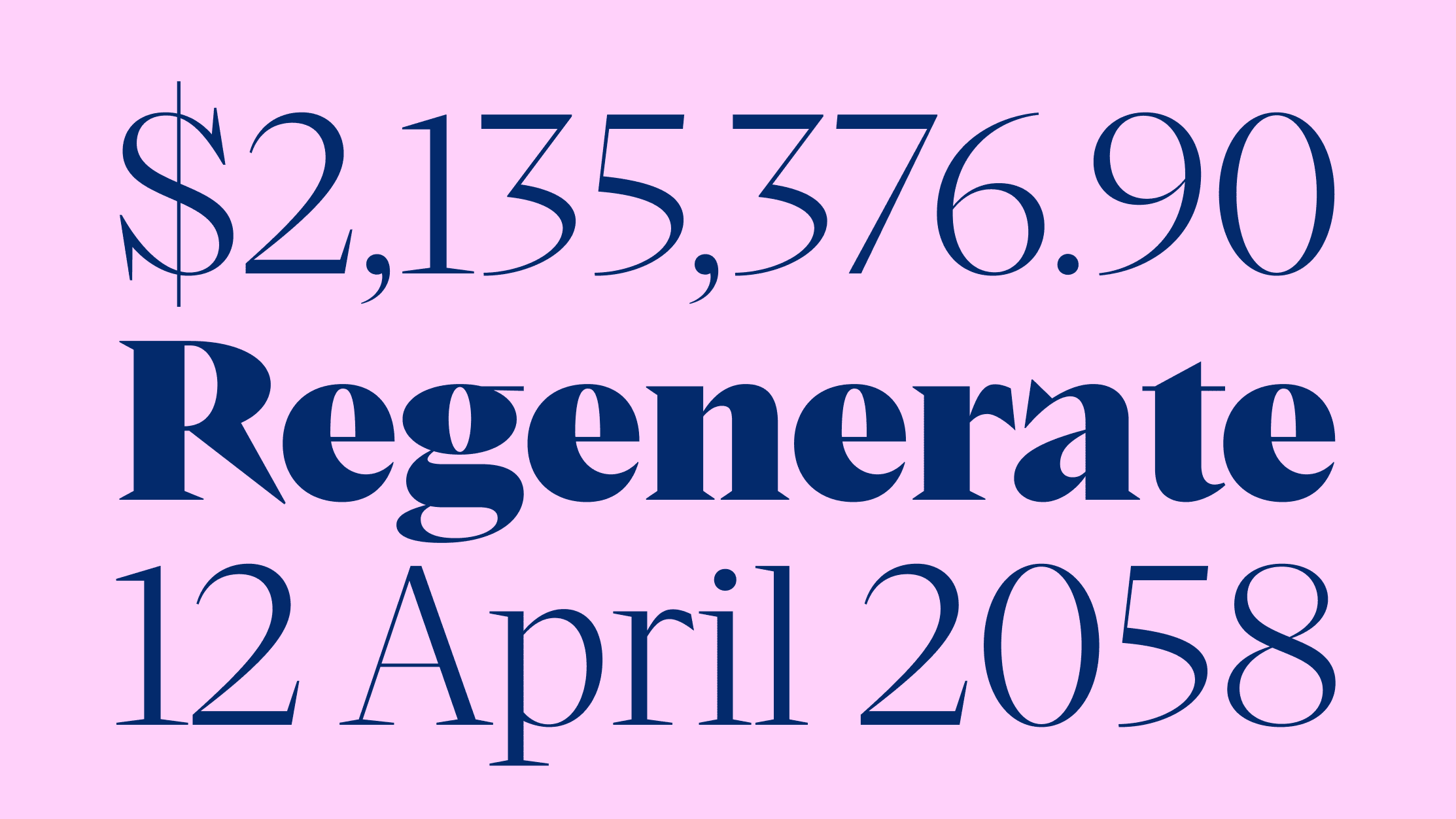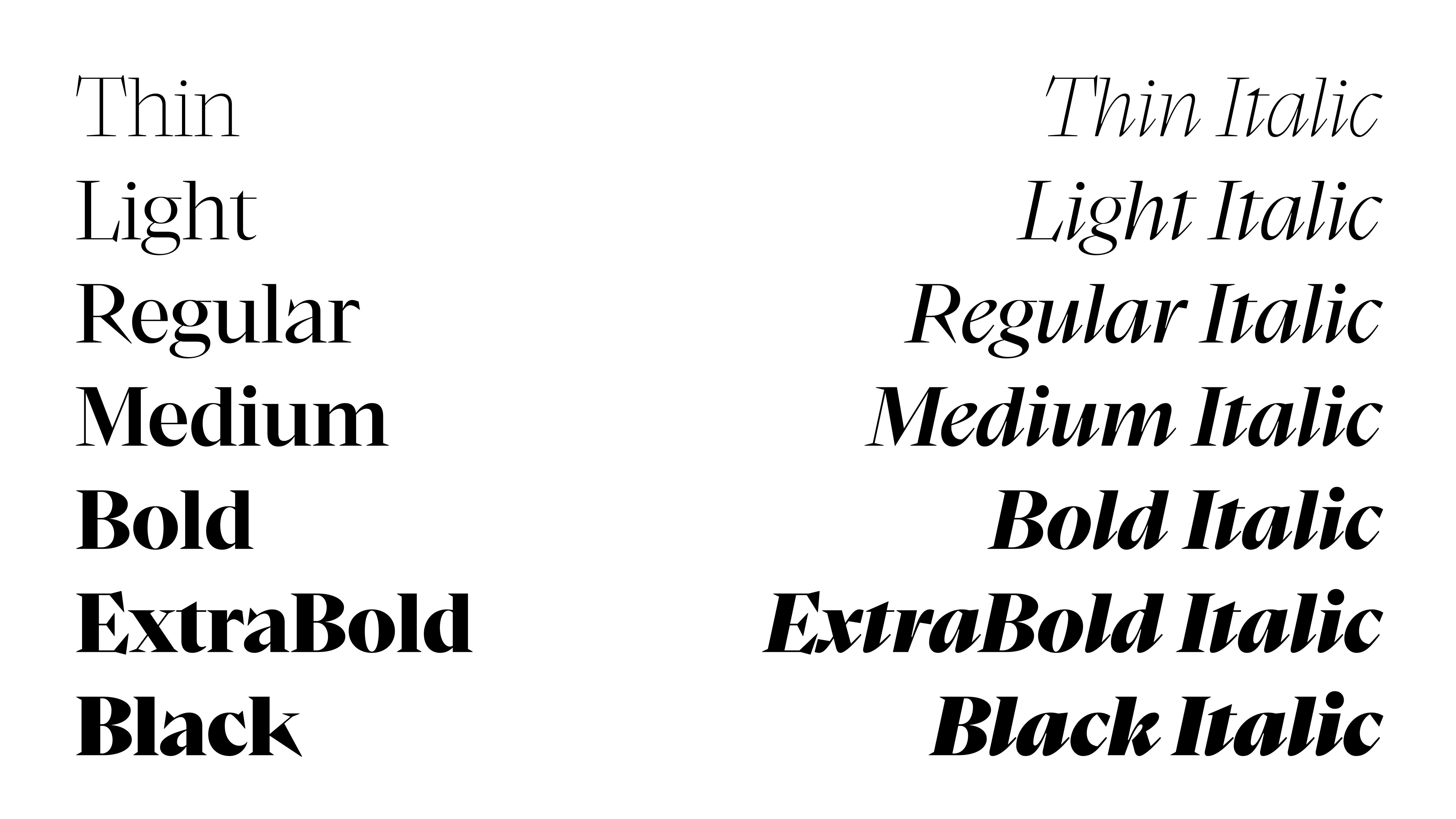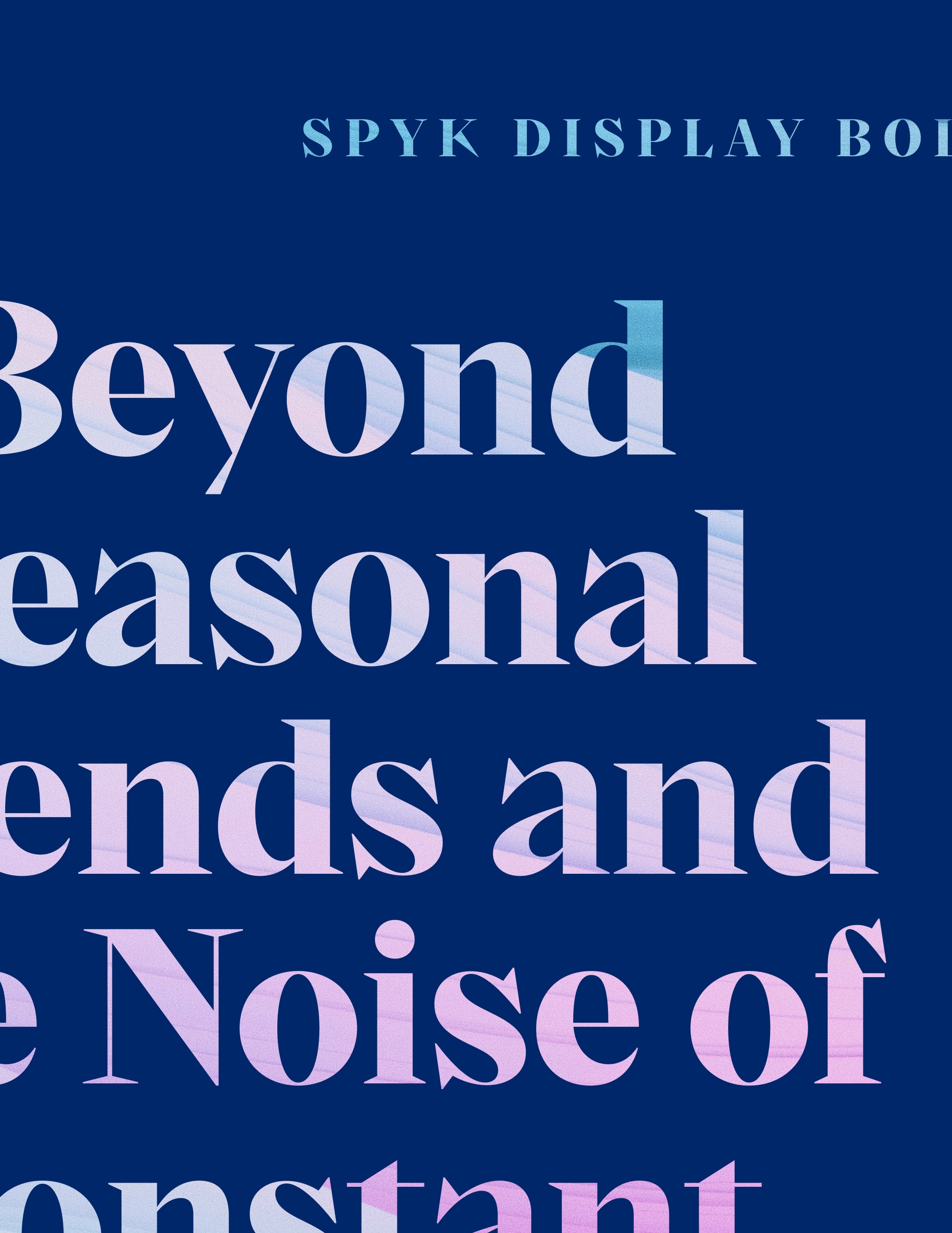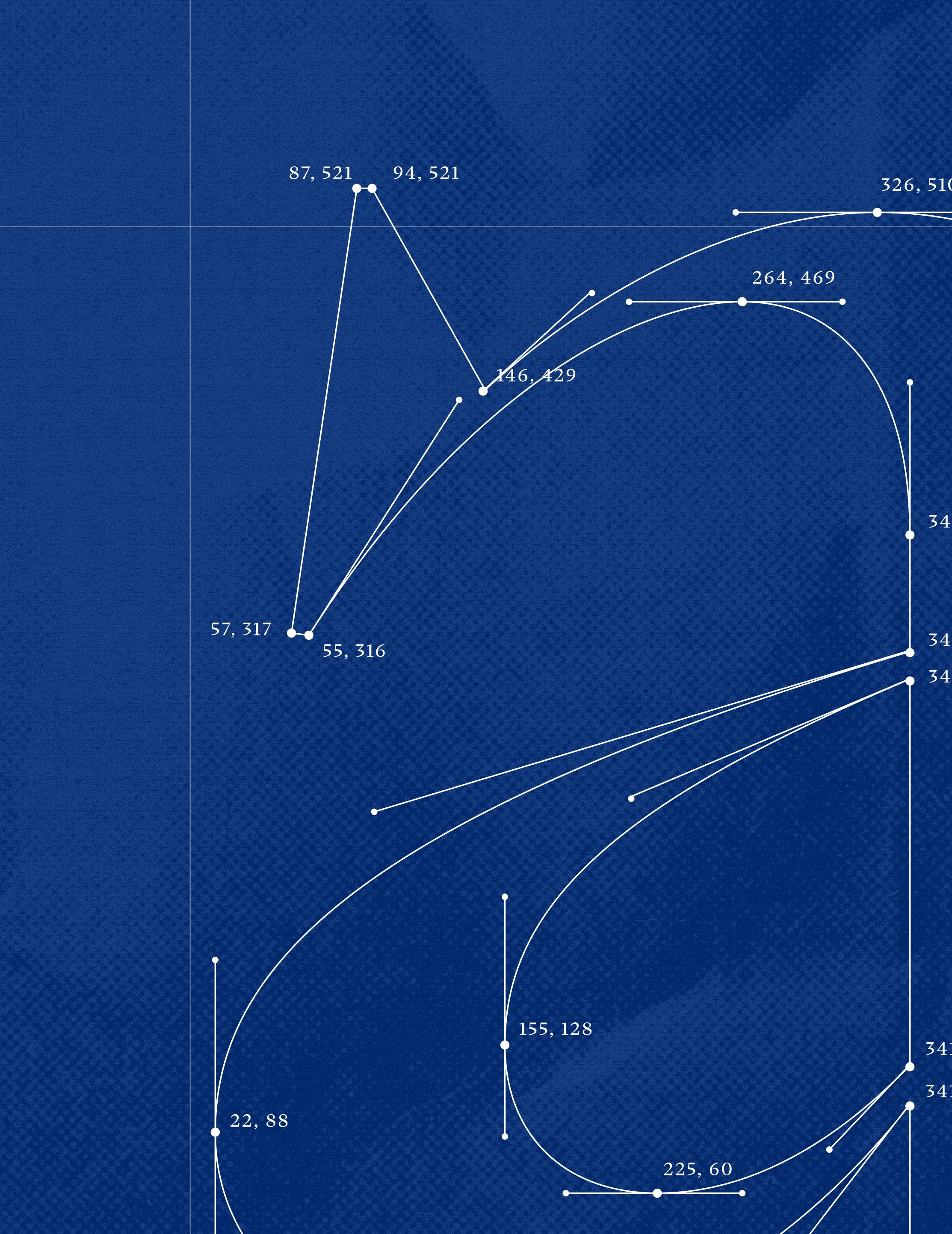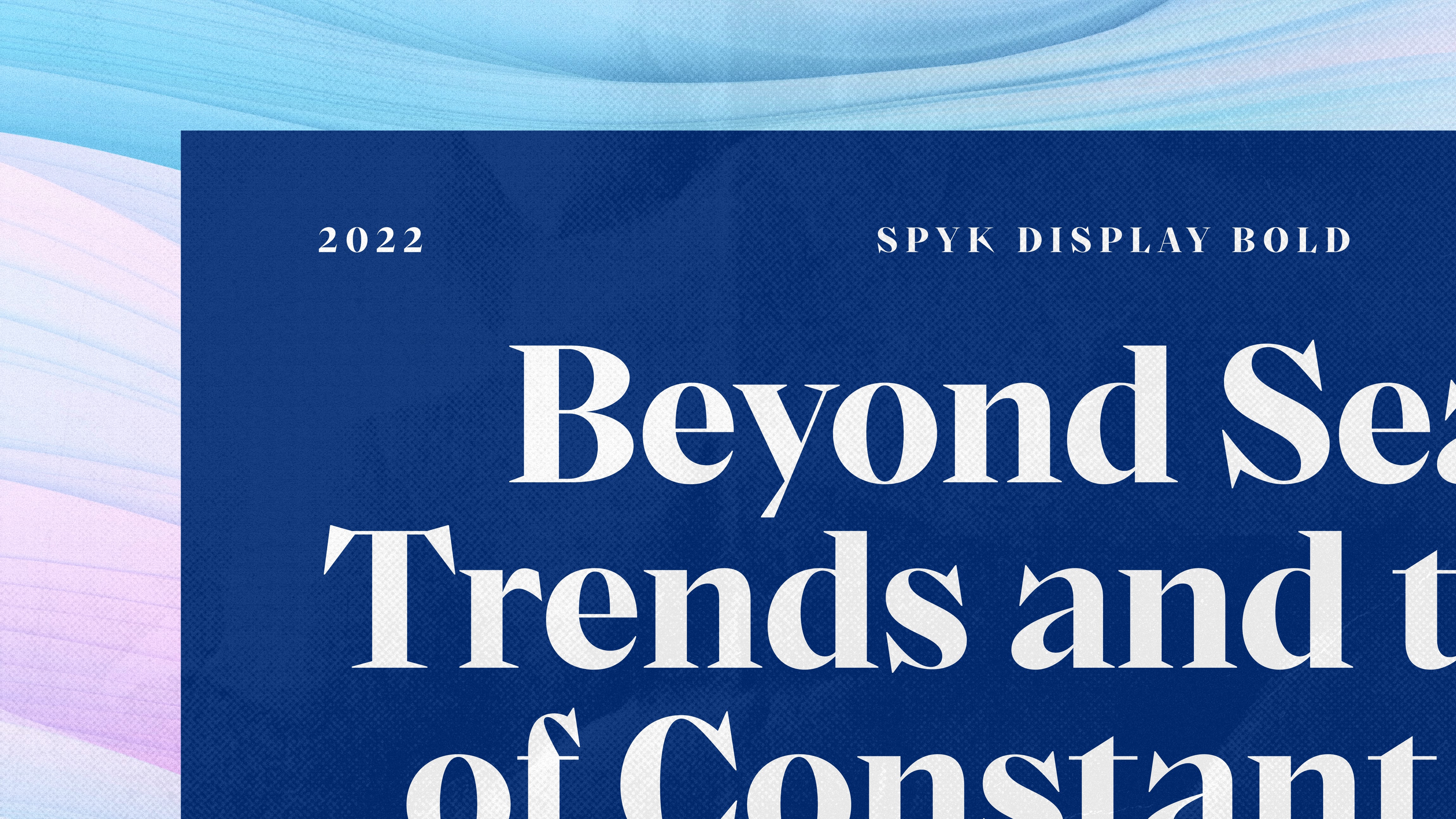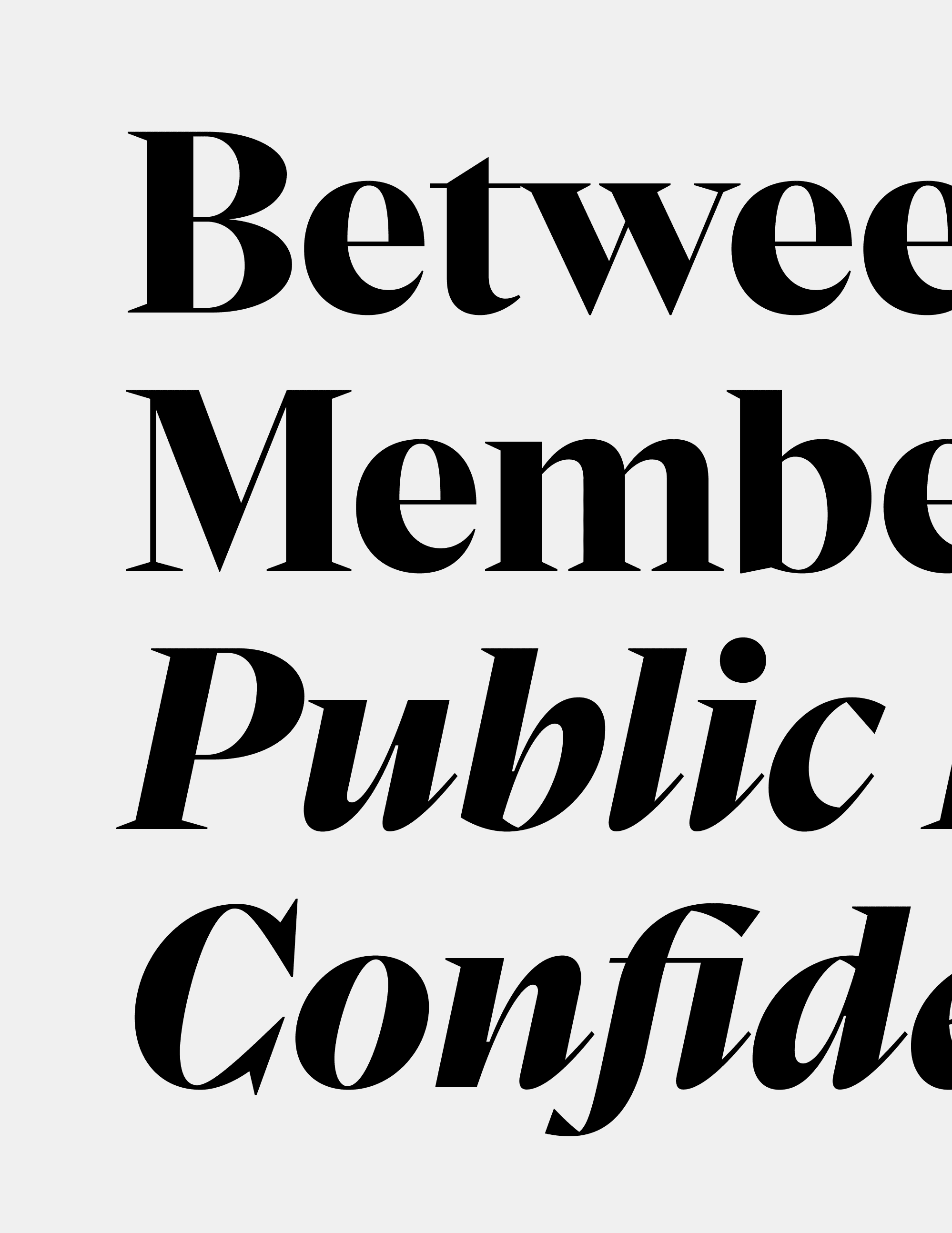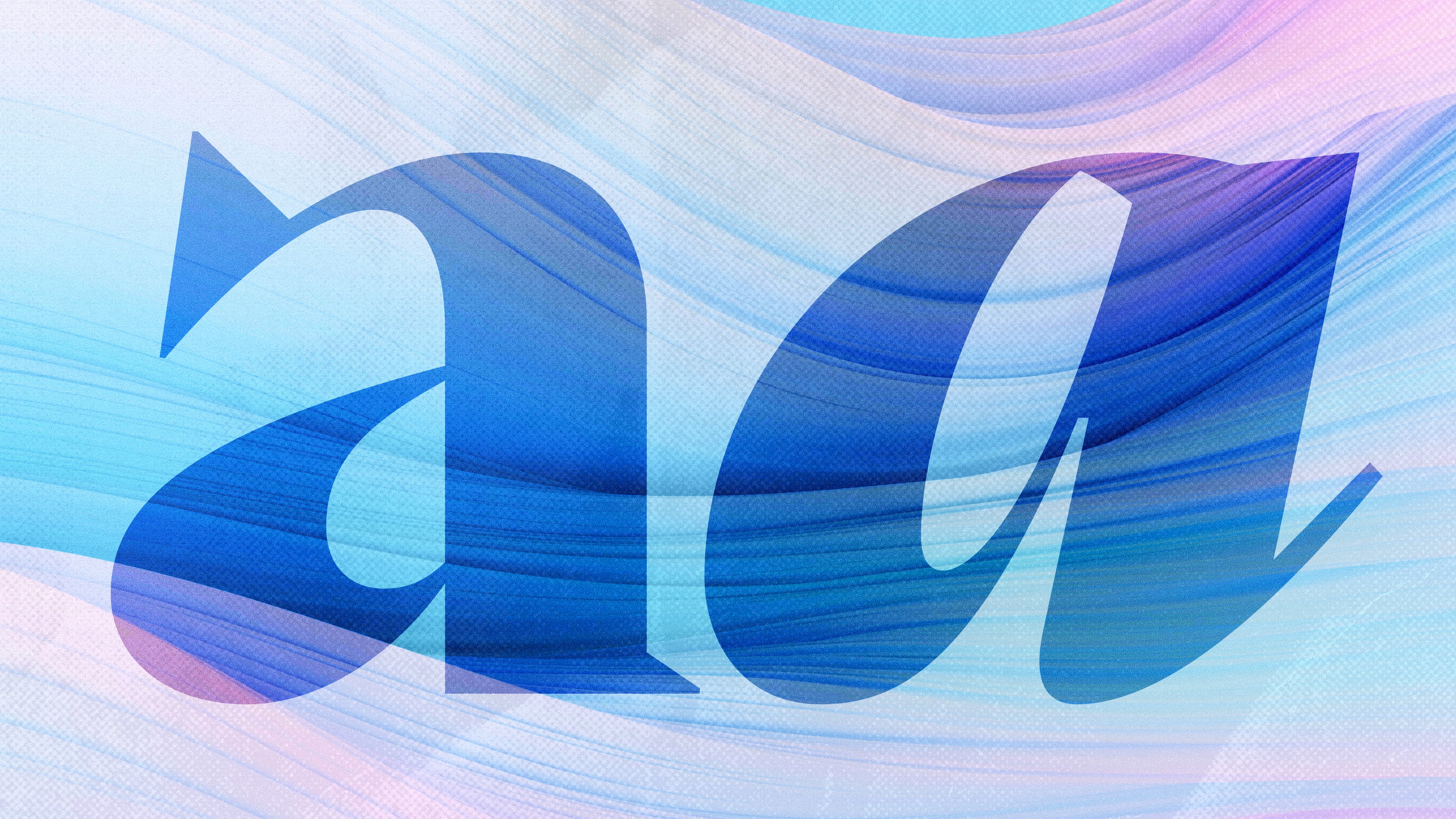
Spyk Display explores contrast, tension, and sculpted form. Defined by sharp details and modern proportions, it brings a distinctive voice to editorial, branding, and publishing work. The collection is complemented by Spyk Text.